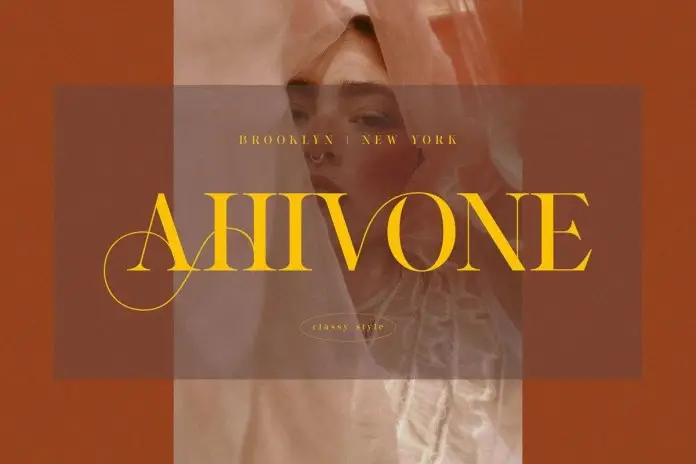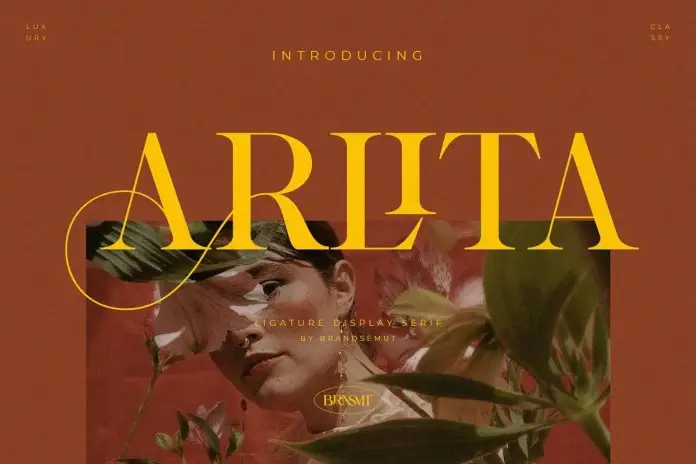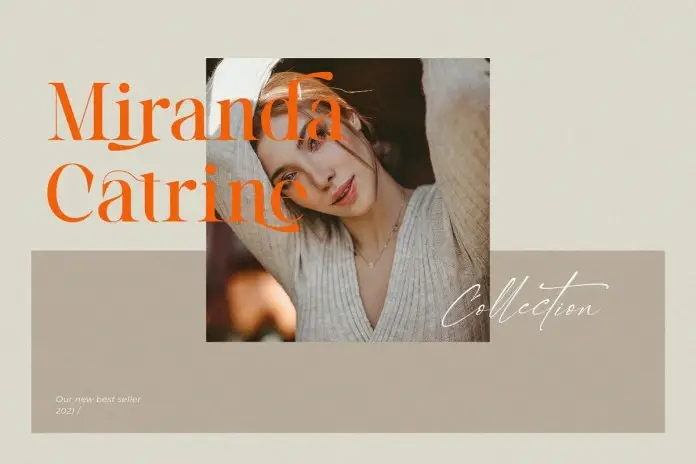
Arlita Font
The Arlita Font is a beautifully crafted typeface that combines elegance with versatility. Perfect for a wide range of applications, this font is designed to elevate your branding, logos, and print materials.
• Weights: Light, Regular, Bold
• Ideal for branding projects, including logos and business cards.
• Great for web design and user interface applications.
• Perfect for print materials such as brochures and flyers.